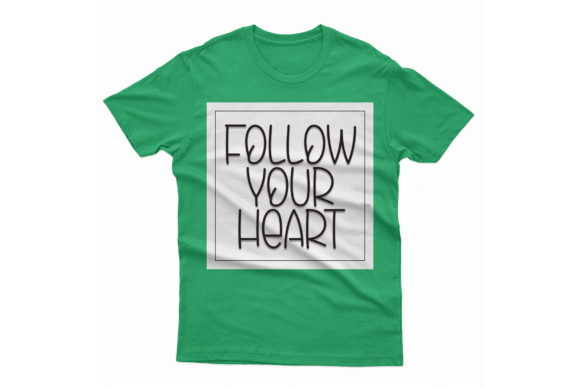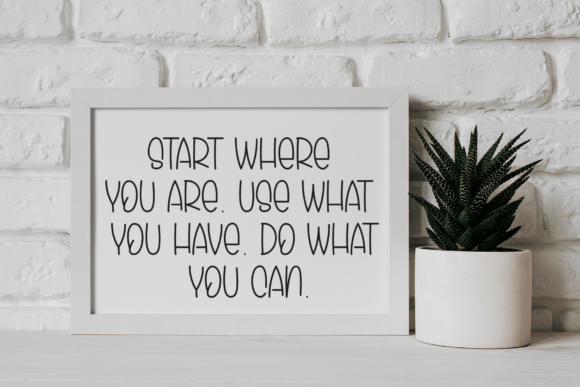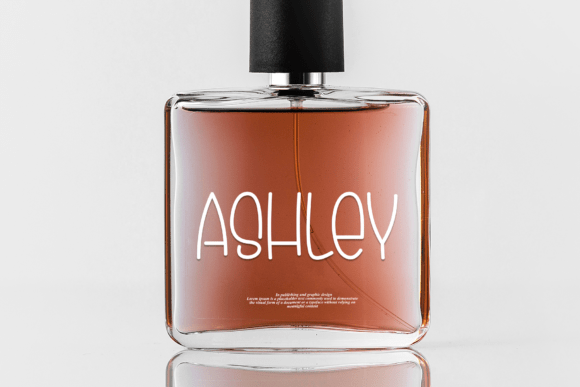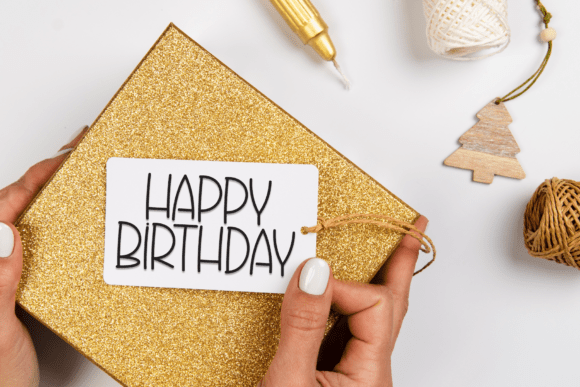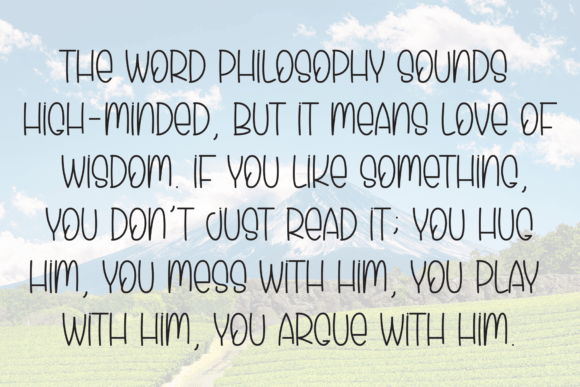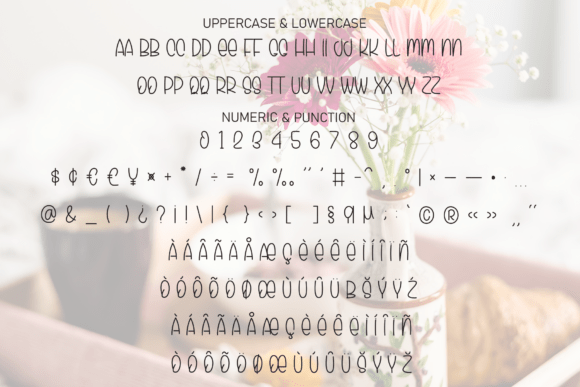
Introduction to Quickly Sunday Font
As a designer, there’s nothing quite like the thrill of discovering a new font that perfectly captures the essence of your creative project. It’s that moment when everything comes together – the colors, the textures, the typography – and you know you’ve hit the mark. For me, that moment came when I stumbled upon the Quickly Sunday Font. Its playful, handwritten style immediately drew me in, and I knew I had to learn more.
With its sweet and friendly character, the Quickly Sunday Font is the perfect addition to any design that needs a little extra personality. Whether you’re creating wedding invitations, greeting cards, or simply looking to add a fun touch to your design, this font is sure to deliver. And the best part? It’s a high-quality, free download that’s perfect for designers on a budget.
But what really sets the Quickly Sunday Font apart is its versatility. Available with a transparent background, this design resource can be easily layered over any image or color scheme, making it the perfect addition to any creative project. So why settle for a boring, generic font when you can add a touch of whimsy and fun with the Quickly Sunday Font?
Key Features of Quickly Sunday Font
- High-quality design: Quickly Sunday Font is a premium font designed for creative projects, offering a sophisticated and elegant look.
- Transparent background: The font’s transparent background allows for seamless integration with any design, giving users more creative freedom.
- Resolution: The font is designed at a high resolution of 300 DPI, ensuring crisp and clear typography in both digital and print designs.
- Unique characteristics: The font features a unique blend of modern and vintage elements, making it an excellent choice for designers looking for a distinctive look.
- Size: The font comes in multiple weights, ranging from 100 to 900, allowing users to choose the perfect size for their creative project.
Honest Review: Quickly Sunday Font
I recently came across the Quickly Sunday Font, a free download that caught my attention. As a designer, I’m always on the lookout for high-quality design resources that can elevate my creative projects. Let’s dive into what this font has to offer.
- ✨ Unique and modern design that’s perfect for modern branding and design projects.
- ✨ Comes with a transparent background, making it easy to use in various design applications.
- ⚠️ Limited character set, which might be a concern for designers who need a wide range of characters.
- ⚠️ Not ideal for large-scale designs, as it may not be scalable without losing quality.
Overall, I’m impressed with the Quickly Sunday Font’s modern design and high-quality feel. While it may have some limitations, it’s a great resource for designers looking to add a unique touch to their creative projects. If you’re looking for a free, high-quality font for your next design project, the Quickly Sunday Font is definitely worth checking out.
Getting the Most Out of the Font
To get the most out of the Quickly Sunday Font, experiment with different font combinations and styles to create a unique design. You can also use the font in conjunction with other design resources, such as graphics and images, to add visual interest to your design.
The Quickly Sunday Font is commonly used in creative projects, such as social media graphics, flyers, and brochures. It’s also a great resource for designers who need a high-quality, transparent background font for their designs.
Yes, the Quickly Sunday Font features a transparent background, making it ideal for use on any background or design element. This allows for maximum flexibility and creative freedom in your design project.